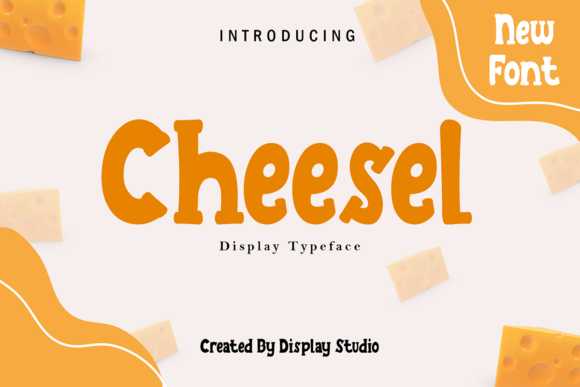
Introducing Cheesel Display Typeface - A Typographic Masterpiece for Enthralling Visual Expressions
In the realm of digital creativity, fonts hold the power to transform ordinary words into captivating visual spectacles. Among this vast typographic universe, Cheesel Display Typeface emerges as a radiant gem, meticulously crafted to elevate your designs to new heights of visual allure.
Cheesel Display Typeface is a font that speaks to the heart of creative expression. Its bold and distinctive presence is a testament to the artistry of its creators, DisplayStudio_. Designed with an unwavering focus on visual impact, Cheesel Display Typeface possesses an inherent ability to capture attention and leave a lasting impression.
Whether you're a seasoned designer or just starting your creative journey, Cheesel Display Typeface is the perfect font to ignite your imagination. Its versatility extends across a wide spectrum of design projects, from brand logos and invitations to greeting cards and personal projects. With its multilingual features and captivating style variations, Cheesel Display Typeface effortlessly adapts to any language or design aesthetic, ensuring that your creative vision shines through.
Beyond its technical prowess, Cheesel Display Typeface embodies a spirit of creativity and innovation. It's a font that encourages you to push the boundaries of design, to explore uncharted territories, and to leave your unique mark on the digital canvas. With Cheesel Display Typeface as your creative ally, you'll find yourself effortlessly crafting designs that captivate, inspire, and leave an indelible mark on your audience.